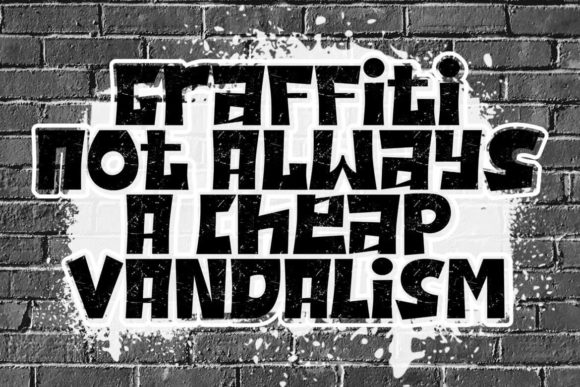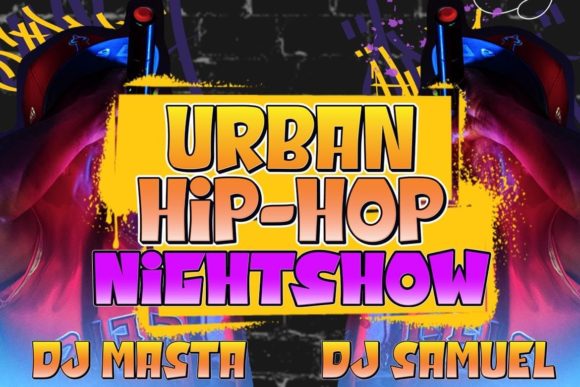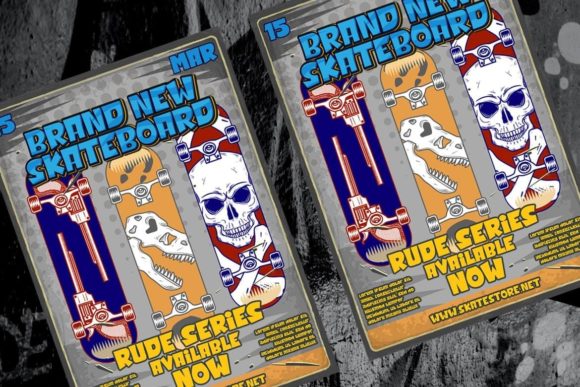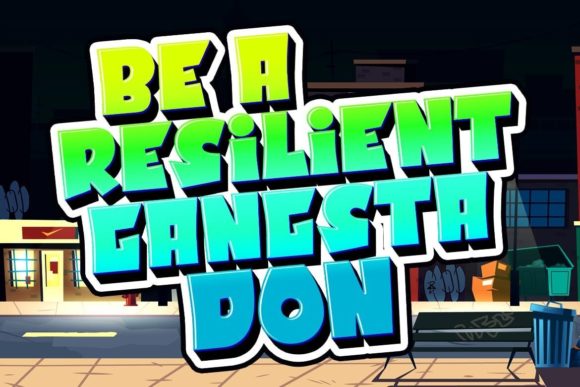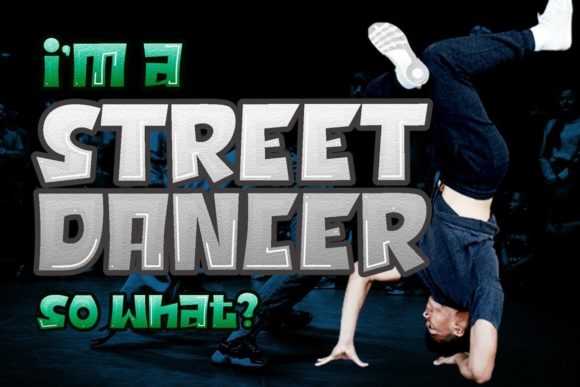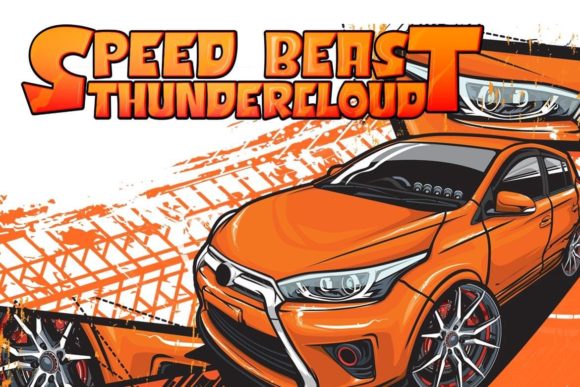
Introduction to Jatiny Font
Jatiny is a graffiti-styled display font that has a bold, street art vibe.
This font is suitable for designs such as t-shirts, sportswear, logos, advertisements, clothing, and more .
Key Features of Jatiny Font